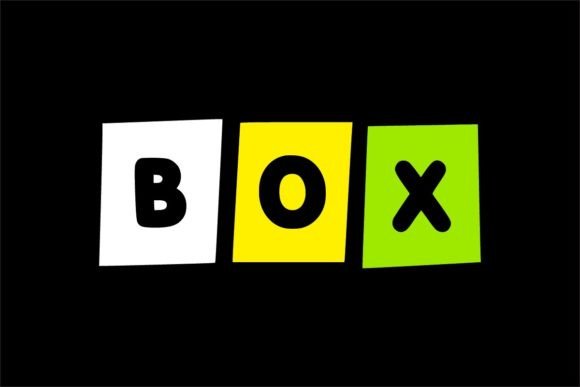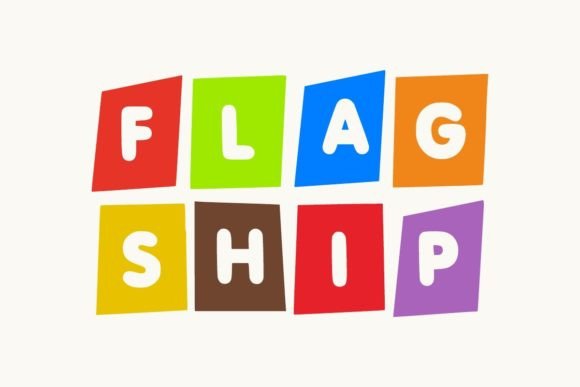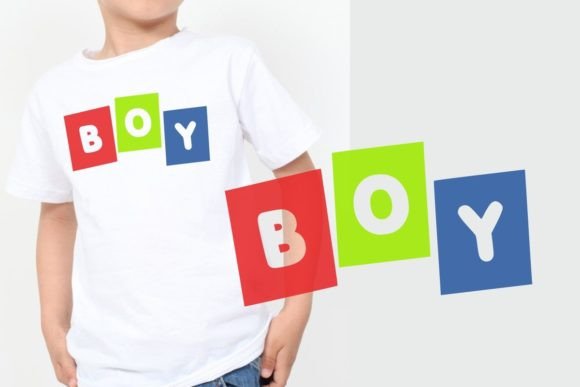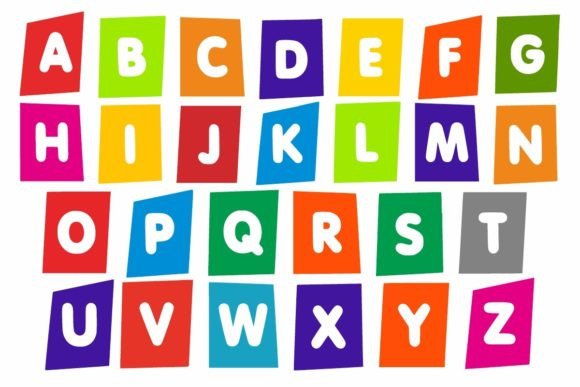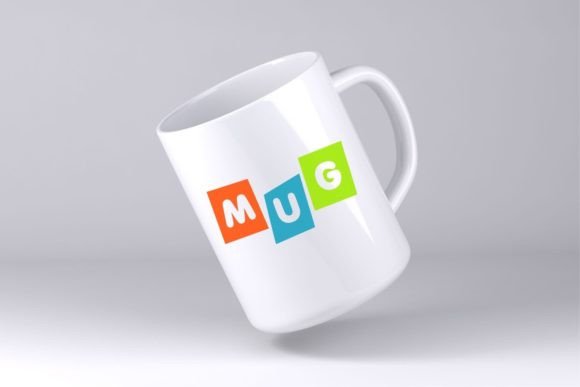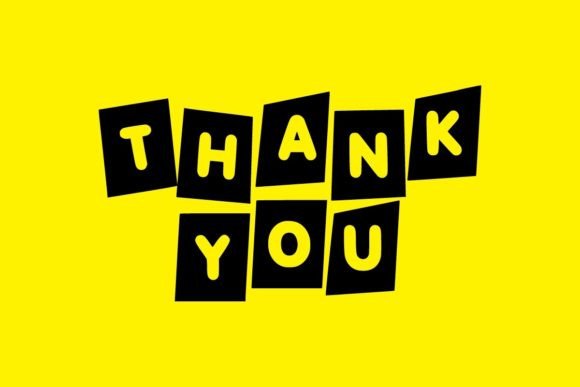
Introduction to Happy Birth Day Font
Happy Birth Day is a fun and childish decorative font that conveys impeccable friendliness.
Key Features of Happy Birth Day Font
Why Choose Happy Birth Day Font?